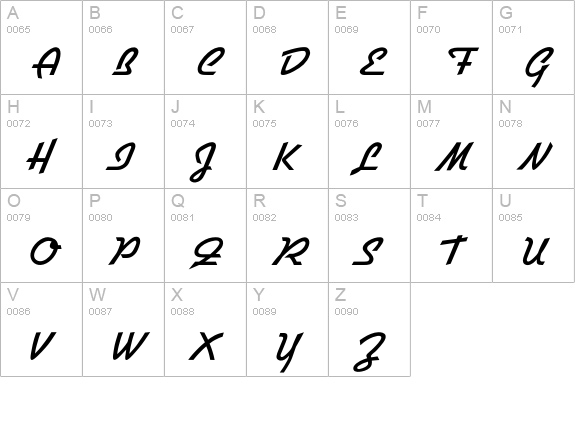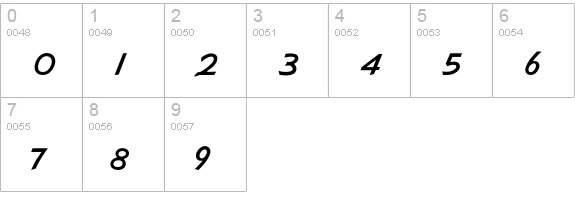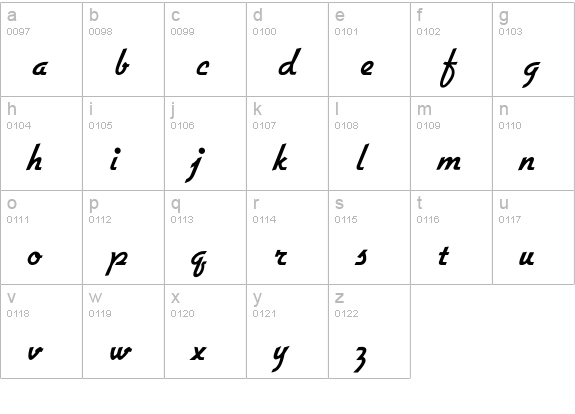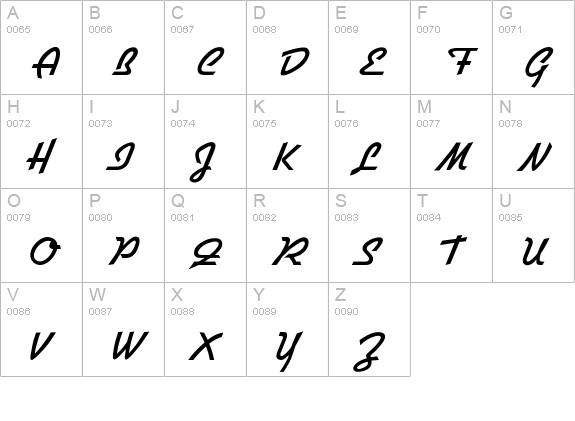
GilliesGothicBold Font Details
GilliesGothicBold is a stunning and elegant font that exudes a sense of mystery and sophistication. Its bold and Gothic-inspired design makes it perfect for adding a touch of drama to any project. This font is ideal for creating eye-catching headlines, logos, posters, and more. What sets GilliesGothicBold apart is its unique blend of classic and modern elements, making it versatile and suitable for a variety of design projects. Whether you're working on a vintage-inspired piece or a contemporary layout, this font is sure to make a statement. The best part? GilliesGothicBold is completely free to download at FontsMarket.com. So why wait? Add this exquisite font to your collection today and elevate your designs with its timeless appeal.